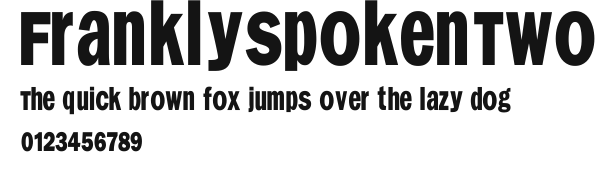
FranklySpokenTwo Preview
• Font Name: FranklySpokenTwo
About FranklySpokenTwo.ttf
FranklySpokenTwo.ttf is a modern, elegant sans-serif font designed for ultimate readability and visual harmony. Perfect for branding, headlines, web design, and print materials.